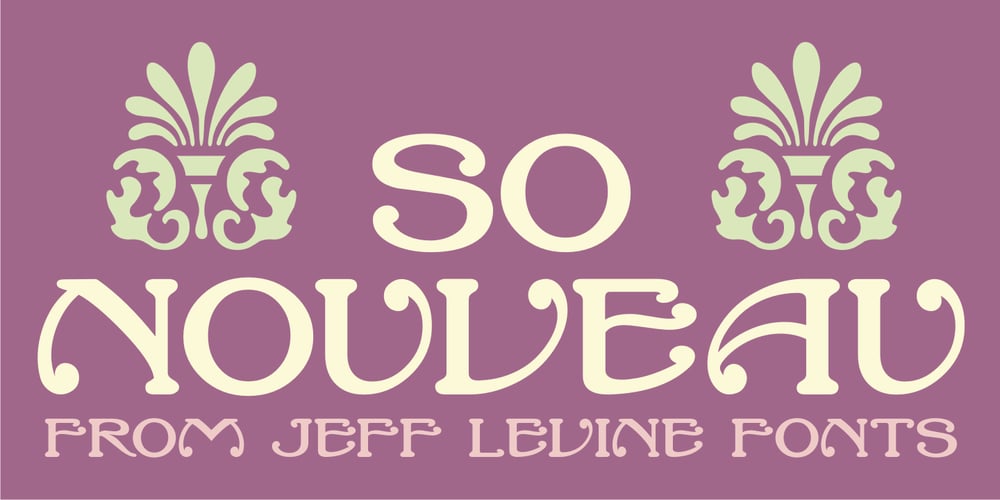
So Nouveau JNL Font Family was designed by Jeff Levine and published by Jeff Levine. So Nouveau JNL contains 1 styles and family package options. Three of the four letters of the name “Jane” on the cover of a vintage piece of sheet music inspired So Nouveau JNL. The free-form swoops emulating the pen lettering of the early 1900s adds a nostalgic charm to this typeface.